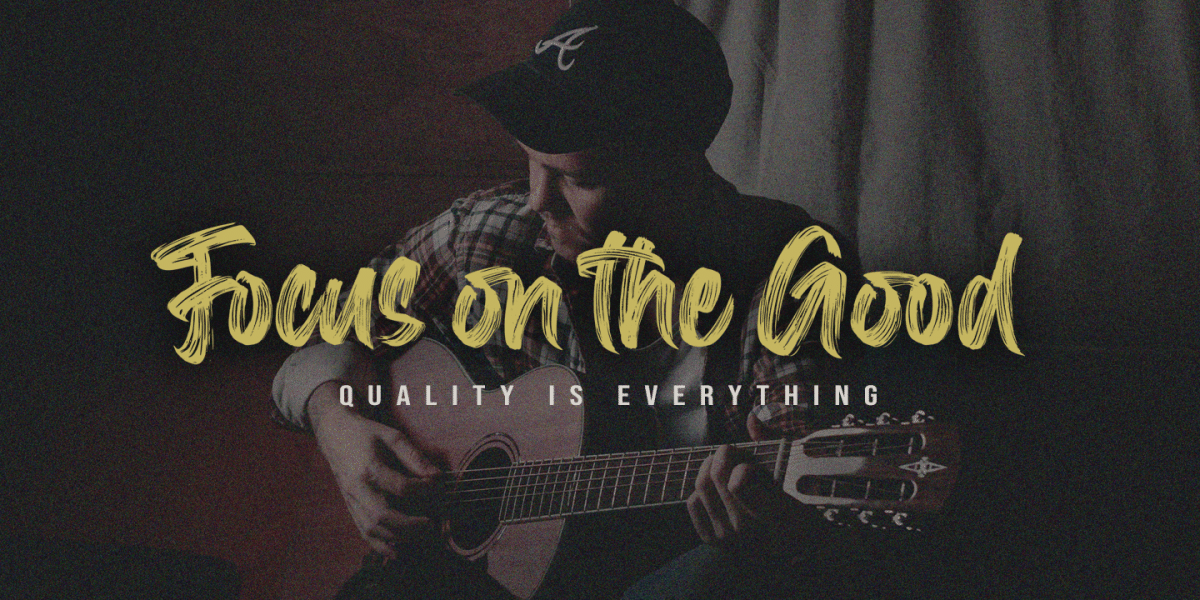
Dark Crow is a true brush script font, hand-painted in 2020. Its top quality design with multiple ligatures combined make the lettering truly realistic.
Provided as upright and italic, and as a bonus a swash font. It has an extensive lingual support, covering all European Latin scripts. The font contains all characters you’ll ever need, including all punctuation and numbers.